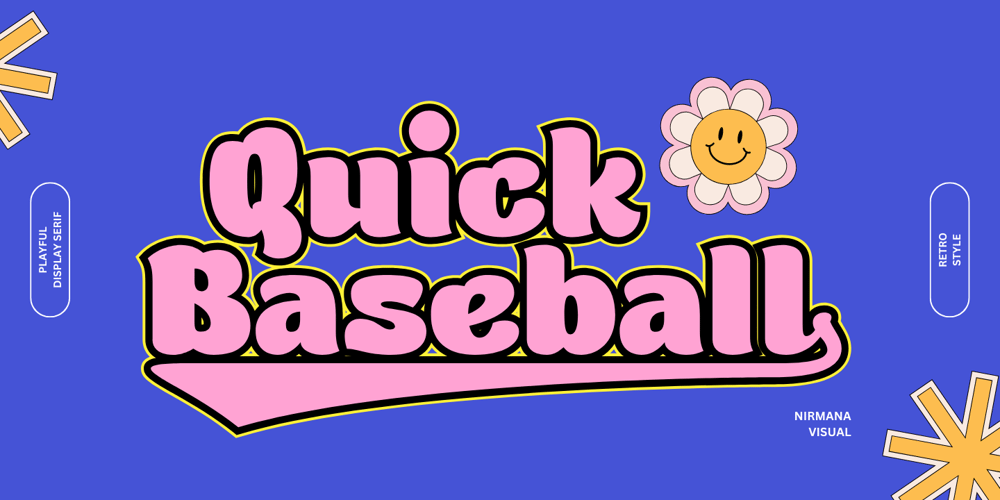
Quick Baseball Font Family was designed by Sigit Dwipa and published by Nirmana Visual. Quick Baseball contains 1 styles and family package options. Quick Baseball, contemporary of Serif font, Insipired by Baseball Club Logo,Quick Baseball it’s retro, bold, and playful. Perfect if you need a dose of fun in your project. offers beautiful typographic harmony for a diversity of design projects, including logos & branding, social media posts, advertisements & product designs.